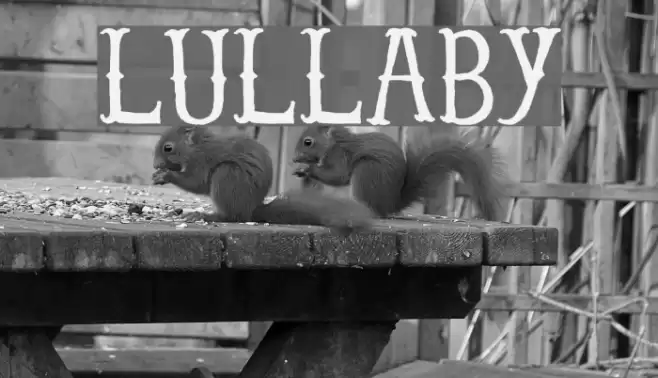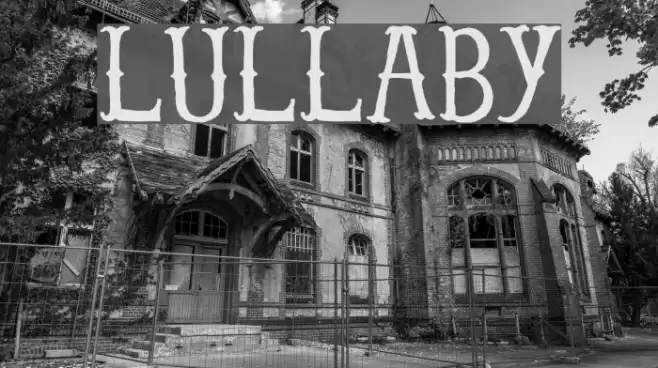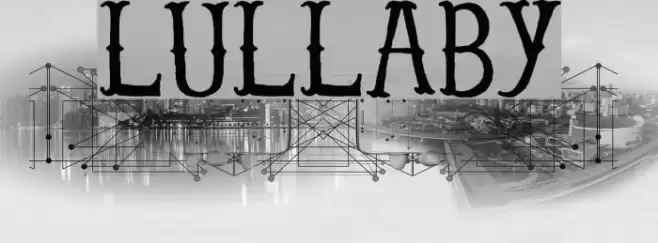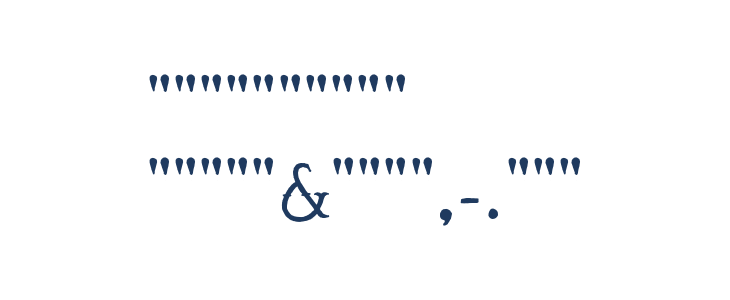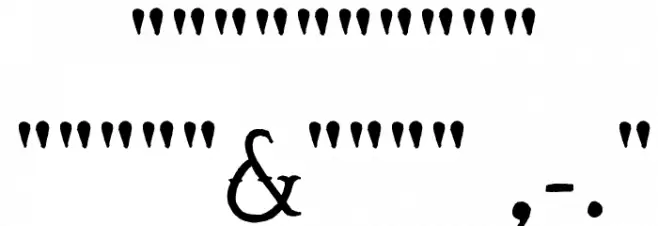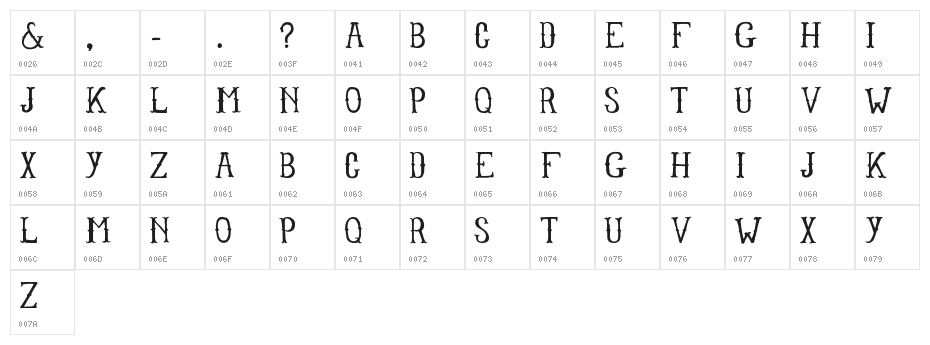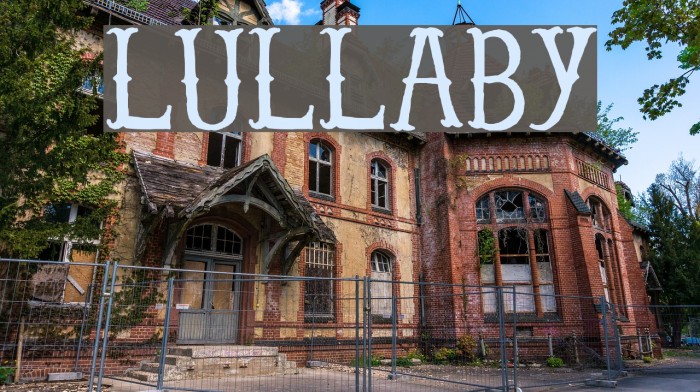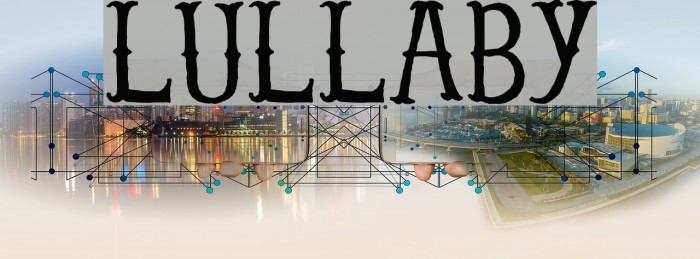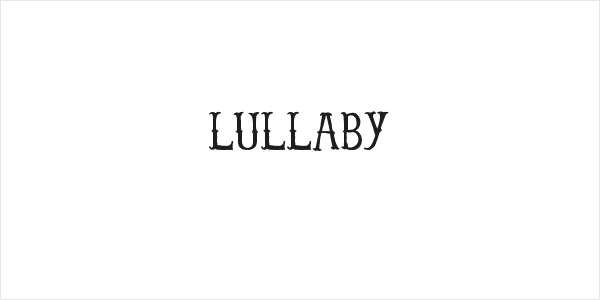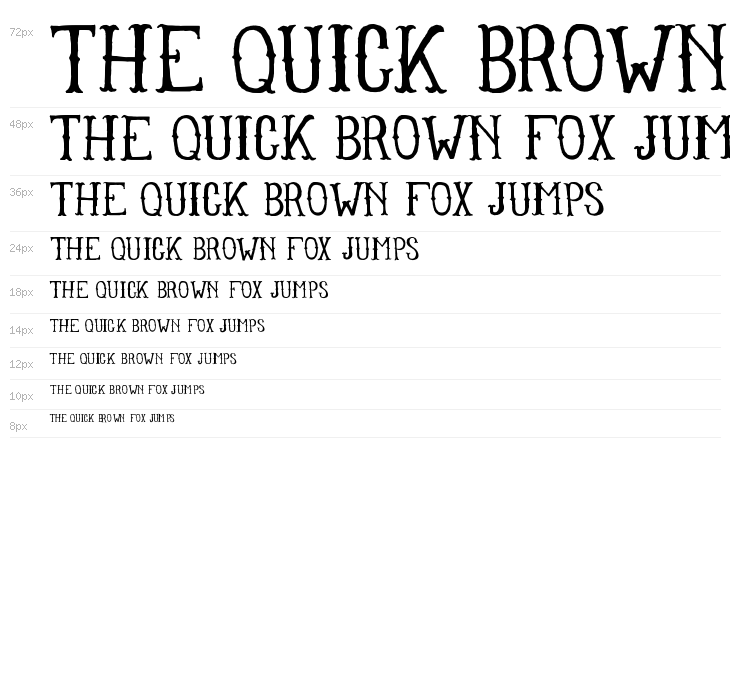
Lullaby Font
Lullaby Description
This font features a unique and decorative style with a vintage flair. The characters are designed with a slightly distressed look, giving them an aged appearance. The uppercase letters have a consistent height, while the lowercase letters maintain a similar style with slightly varied heights. The strokes are uneven, adding to the hand-crafted feel. The font includes a full set of uppercase and lowercase letters, numbers, and a selection of special characters. Its distinct style makes it suitable for projects that require a touch of nostalgia or a handcrafted aesthetic.
A decorative, vintage-style font with a distressed, handcrafted look from Uncategorized fonts.
- Proposed Projects: Ideal for vintage-themed posters, invitations, branding, and packaging designs.
- Overall Style: Vintage